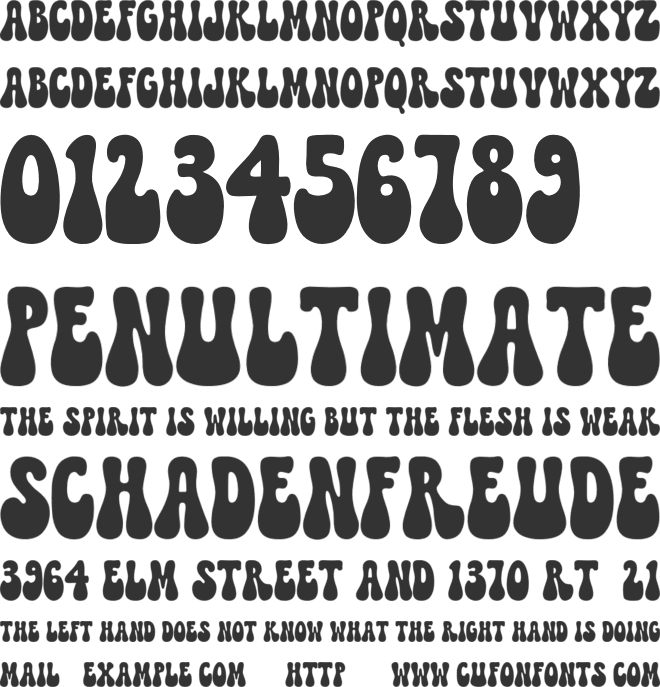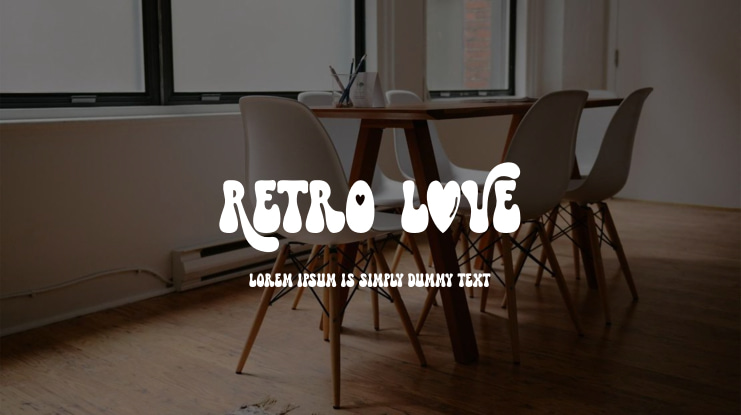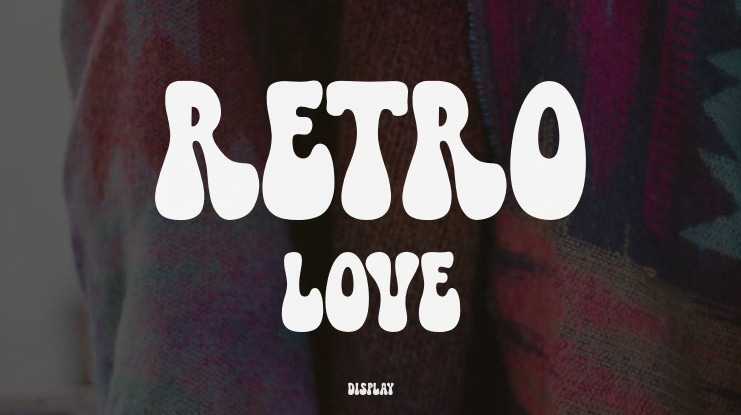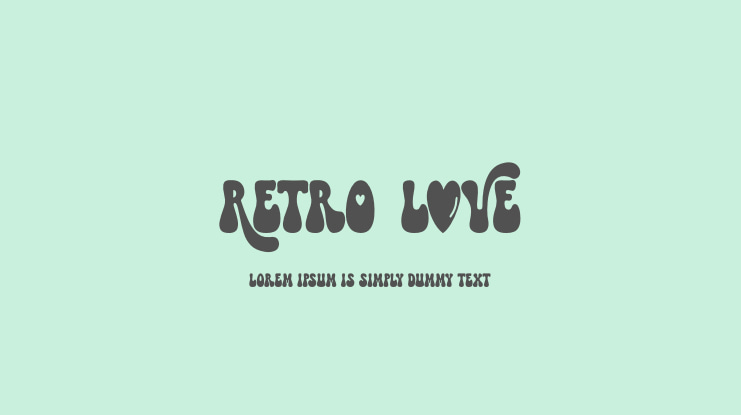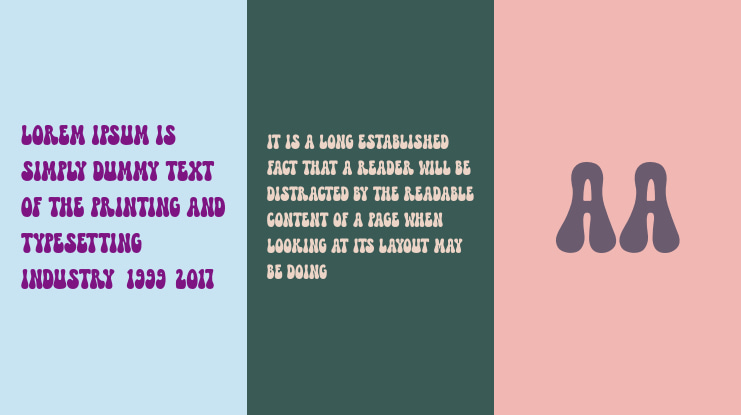
Retro Love Font
Introducing Retro Love, a font that exudes a vintage, groovy, and fun vibe. This display font is perfect for adding a touch of retro charm to any design concept you can imagine!
Whether it's for logos, headlines, signage, invitations, labels, magazines, books, greeting or wedding cards, packaging, fashion, makeup, stationery, novels, or any advertising purpose, this font is designed to make a statement.